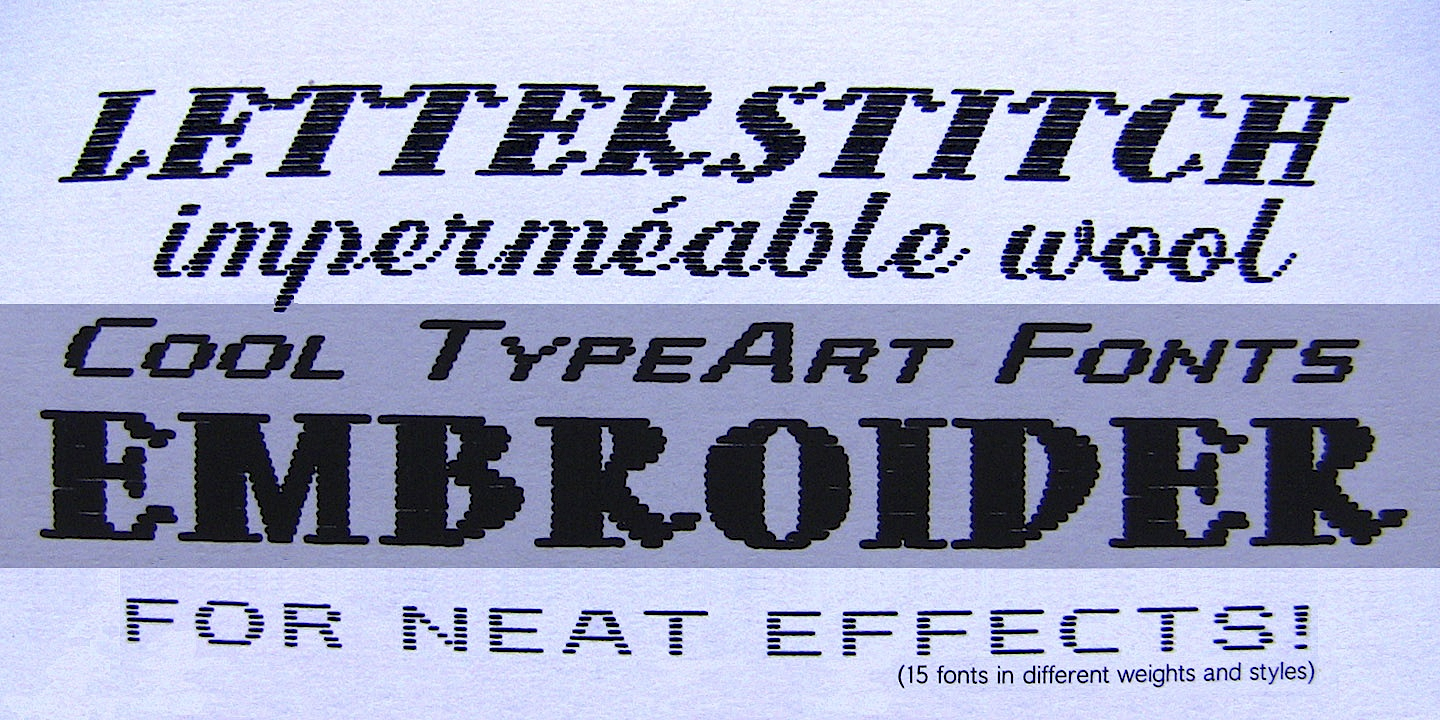
Letterstitch Plain Font Free Download is a unique, stitched-inspired typeface designed to bring a handcrafted, textured look to your designs. Perfect for logos, branding, packaging, posters, and custom projects, this font mimics the look of stitches, giving it a warm, artisan feel. Letterstitch Plain Font adds personality and charm to your creative work, making it ideal for designs that require a touch of craftsmanship and authenticity.
With Letterstitch Plain Font Free Download, you’ll receive a complete set of uppercase letters, lowercase, numbers, and essential punctuation, offering flexibility for various creative applications. Whether you’re designing custom logos, creating promotional materials, or crafting decorative items, this font ensures readability while giving your designs a handmade, unique aesthetic.
Add texture and personality to your designs with Letterstitch Plain Font Free Download. Its handmade, stitched look makes it perfect for projects that need a personal, creative touch.